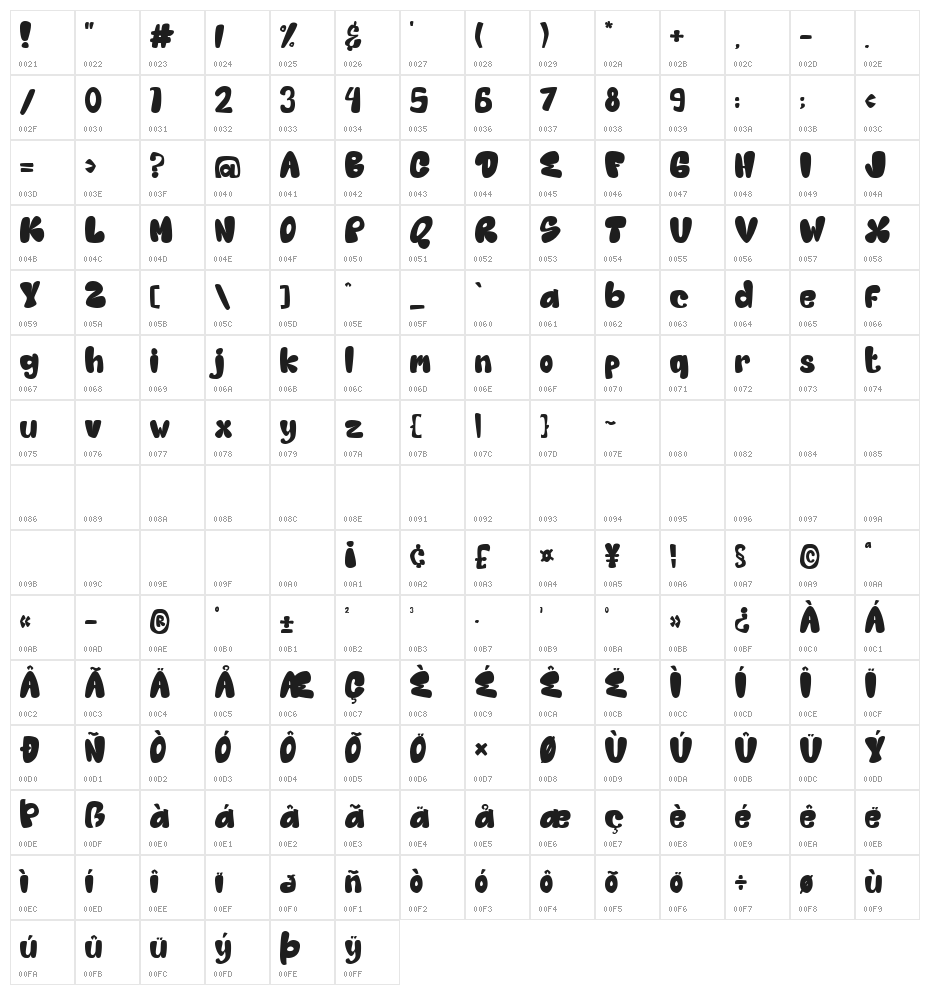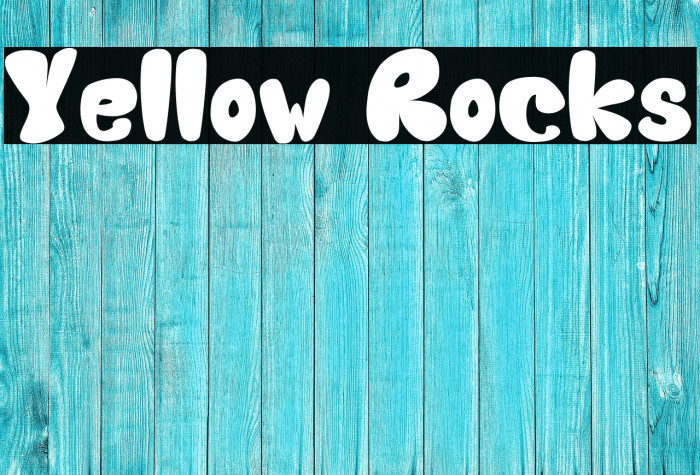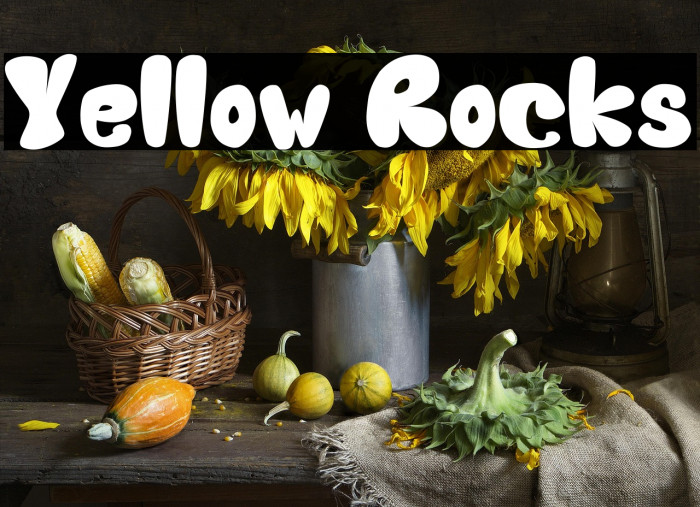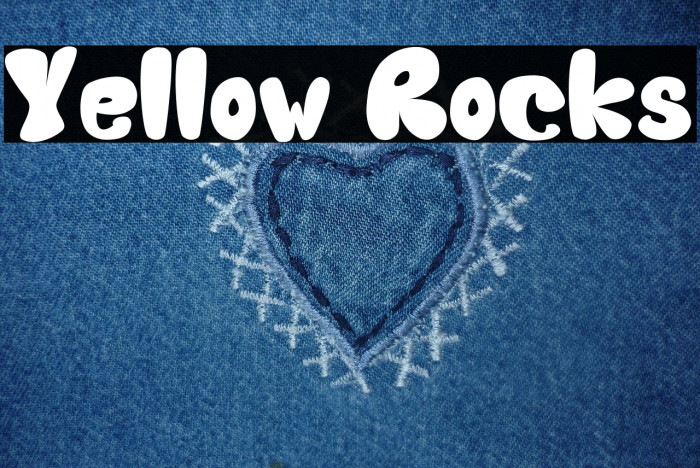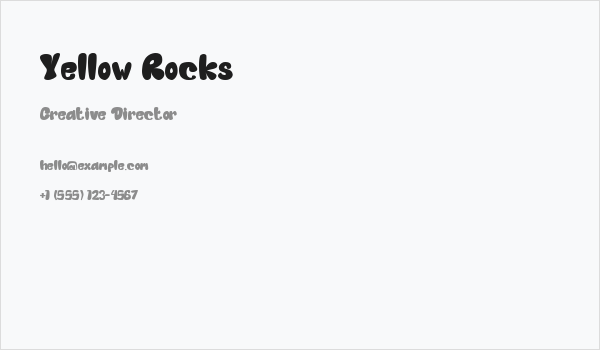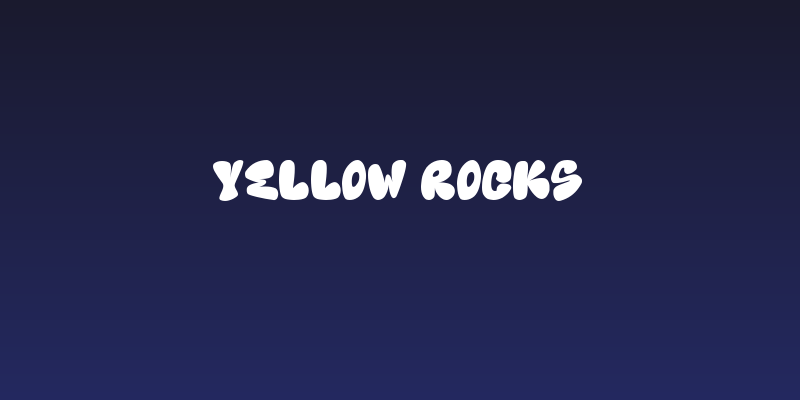
Yellow Rocks Font
Yellow Rocks Description
This playful and bold font features rounded, chunky letters that convey a sense of fun and whimsy. The characters are designed with a consistent thickness, giving the font a cohesive and unified appearance. The uppercase and lowercase letters maintain a similar style, with the lowercase letters slightly smaller in size but equally bold. The numbers and special characters are crafted to match the overall playful aesthetic, making them ideal for creative and informal designs. The font's unique style is perfect for projects that require a touch of personality and flair.